Three-Axis Variation
Weight, height, and width become design axes for responsive time typography.
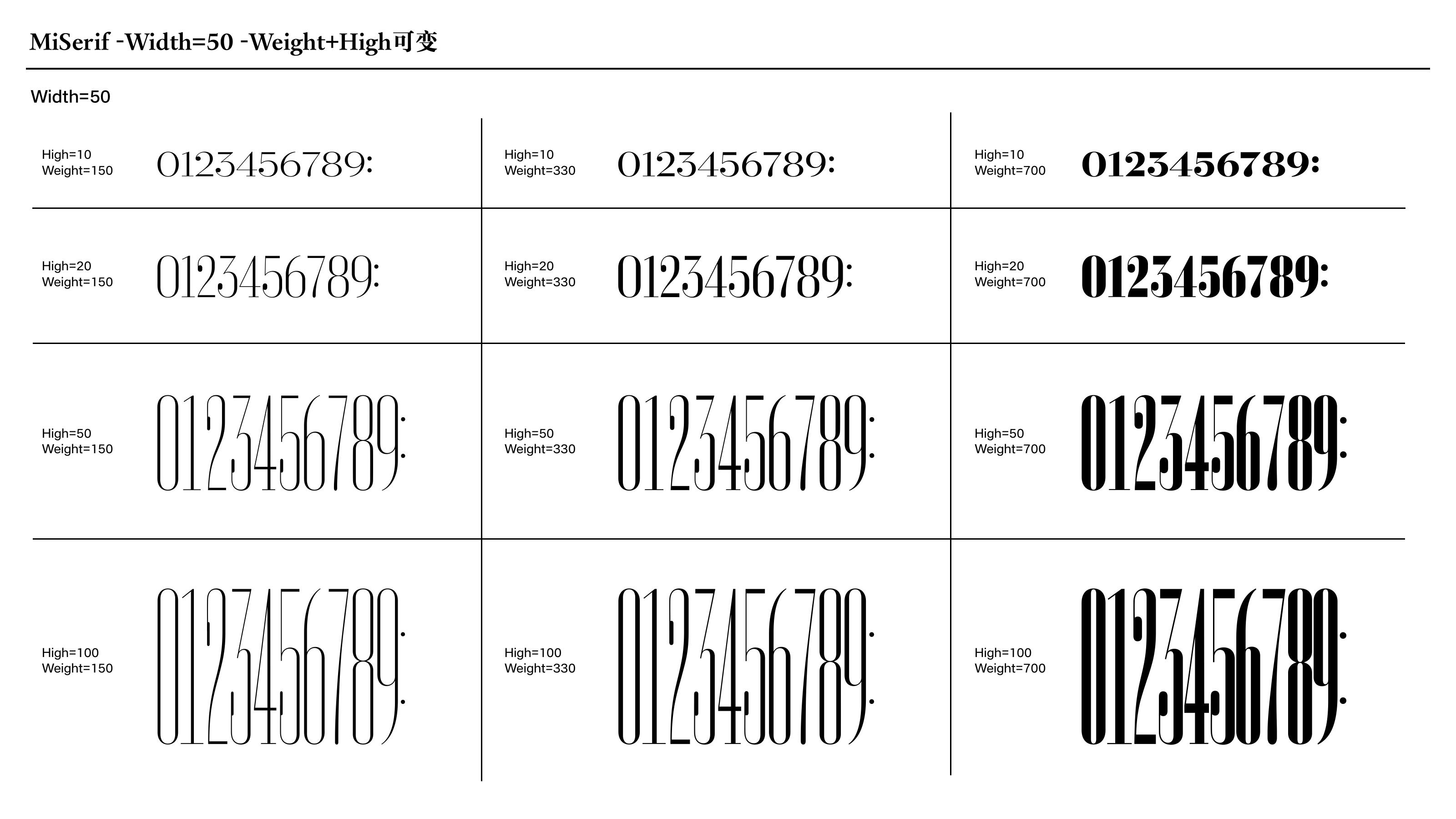
Lock-Screen Digit Customization
Numbers that move with the device experience.
Dynamic Font covers custom lock-screen numeral systems for device brands, from expressive clock styles to three-dimensional variable digits that expand weight, height, and width into a fluid visual system.
Overview
Hanyi has created dedicated lock-screen Latin letters and numerals for OPPO, Huawei, Honor, Xiaomi, and other device manufacturers, using digital type technology to reshape classic time displays.
Custom lock-screen systems can vary numeral height, weight, and width; place time displays inside activity cards, photo masks, and system widgets; and give each screen wake a distinct visual tone.
Multiscript numeral design supports brand internationalization, including coordinated digits across seven writing environments and OpenType behaviors for numeral replacement and centered colons.
Weight, height, and width become design axes for responsive time typography.
Digit forms can shift from compact to tall, light to bold, and narrow to wide while retaining a recognizable style.
Coordinate lock-screen digits across language environments, including alternate numeral forms and interface-specific OpenType behaviors.
Case Details
These modules show how lock-screen digits move from variation axes to phone scenarios: height, width, weight, style proposals, and foldable layouts.
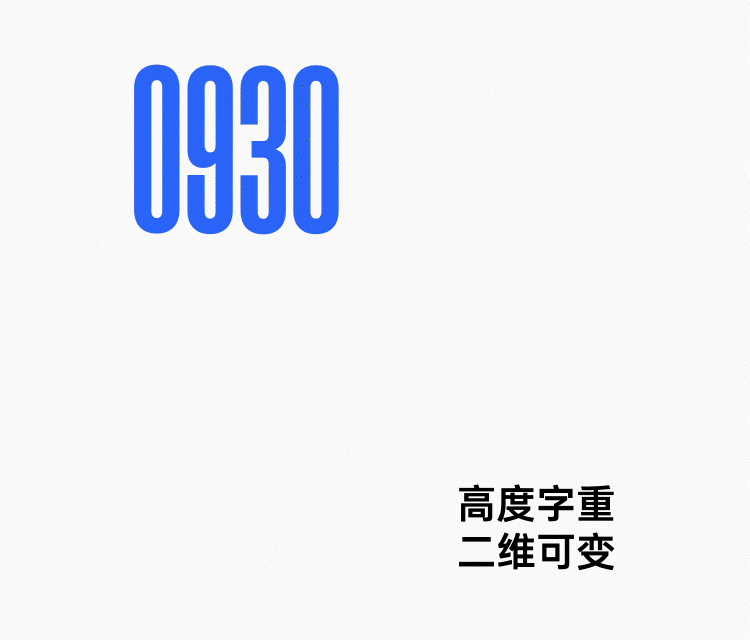
A clock face can grow taller and heavier without losing its construction, creating expressive lock-screen numbers for activity cards, wallpapers, and brand moments.
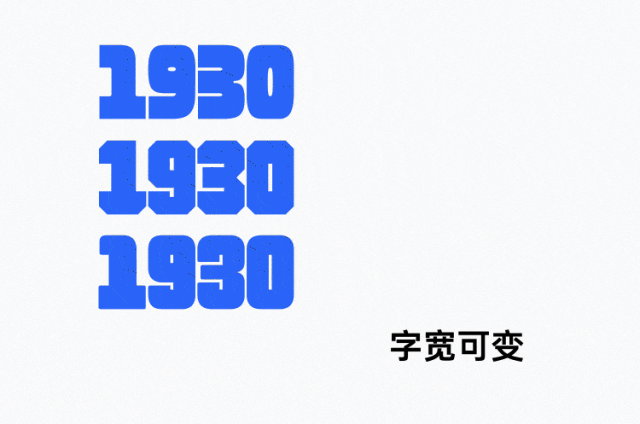
Width variation gives the same numeral style compact, balanced, and emphatic settings, letting the clock adapt to different screen proportions and compositions.
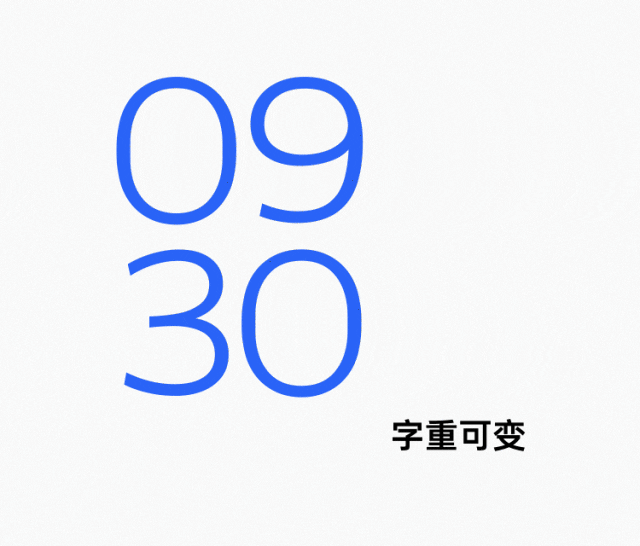
Smooth weight interpolation shifts the time display from light and elegant to bold and assertive while preserving recognition.
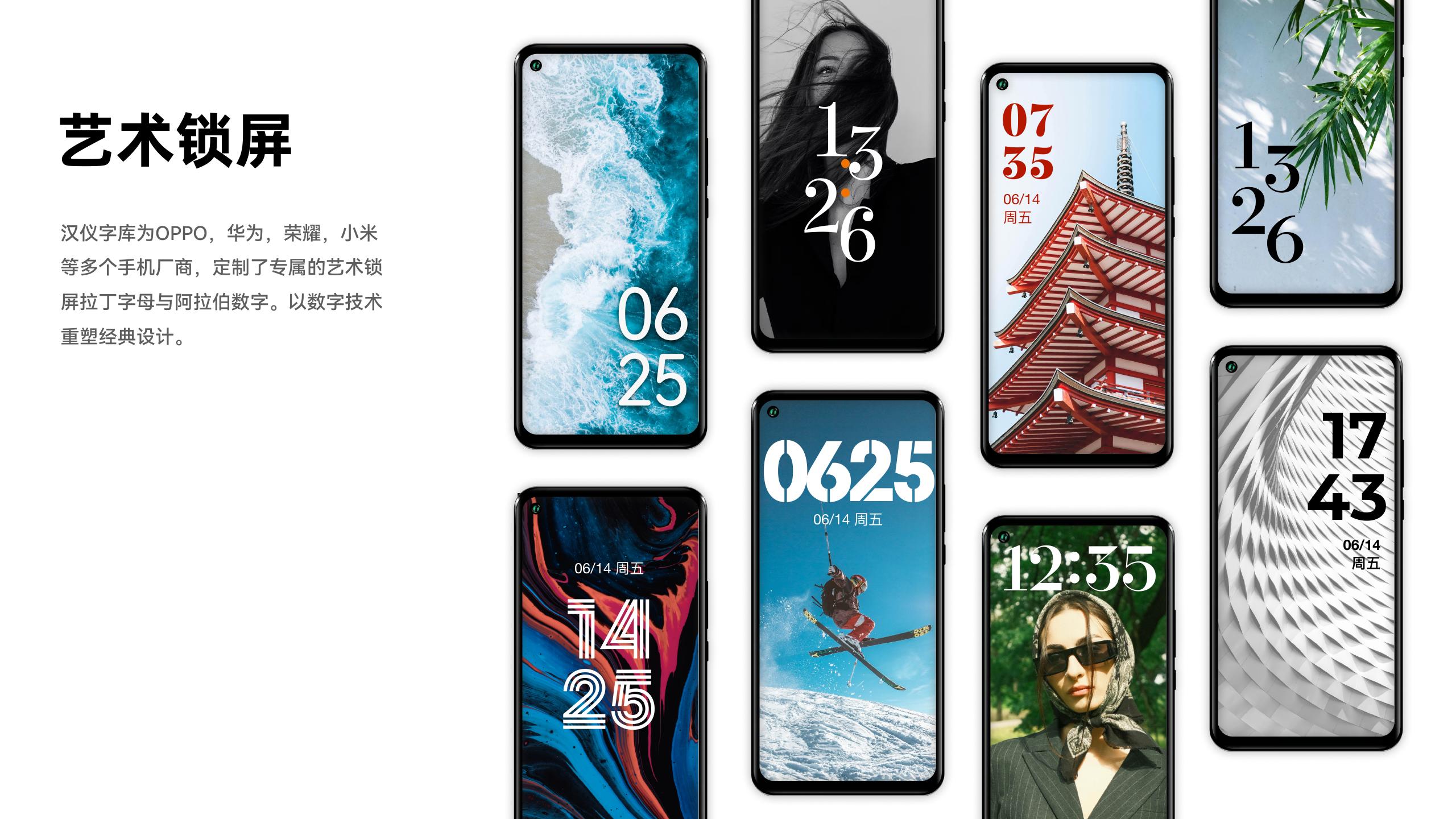
Hanyi develops custom Latin letters and numerals for OPPO, Huawei, Honor, Xiaomi, and other device brands, turning the lock-screen clock into a branded design asset.
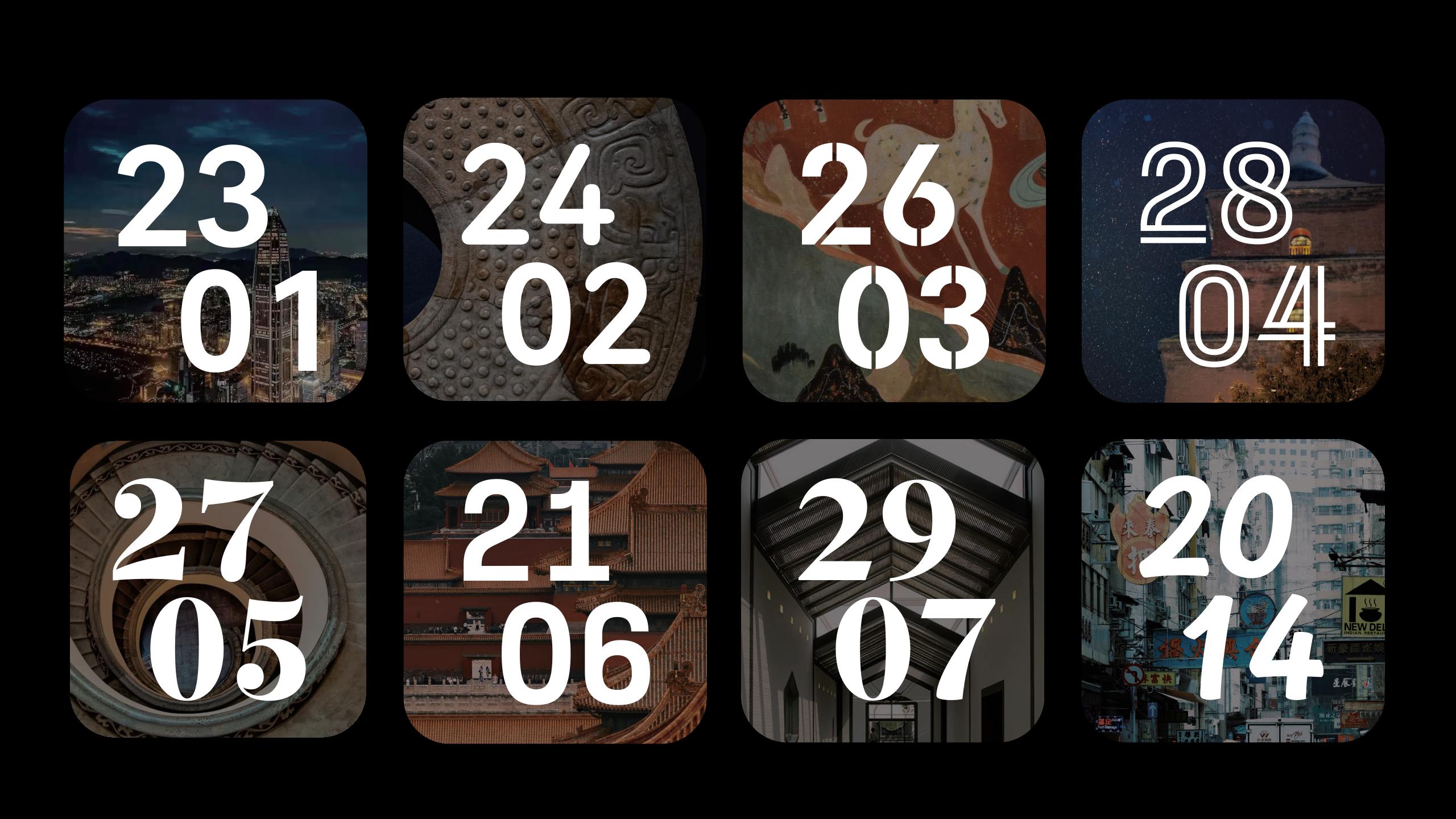
The proposal set tests different numeral voices across architecture, culture, city, and image-led themes, helping brands build a flexible style library before production.
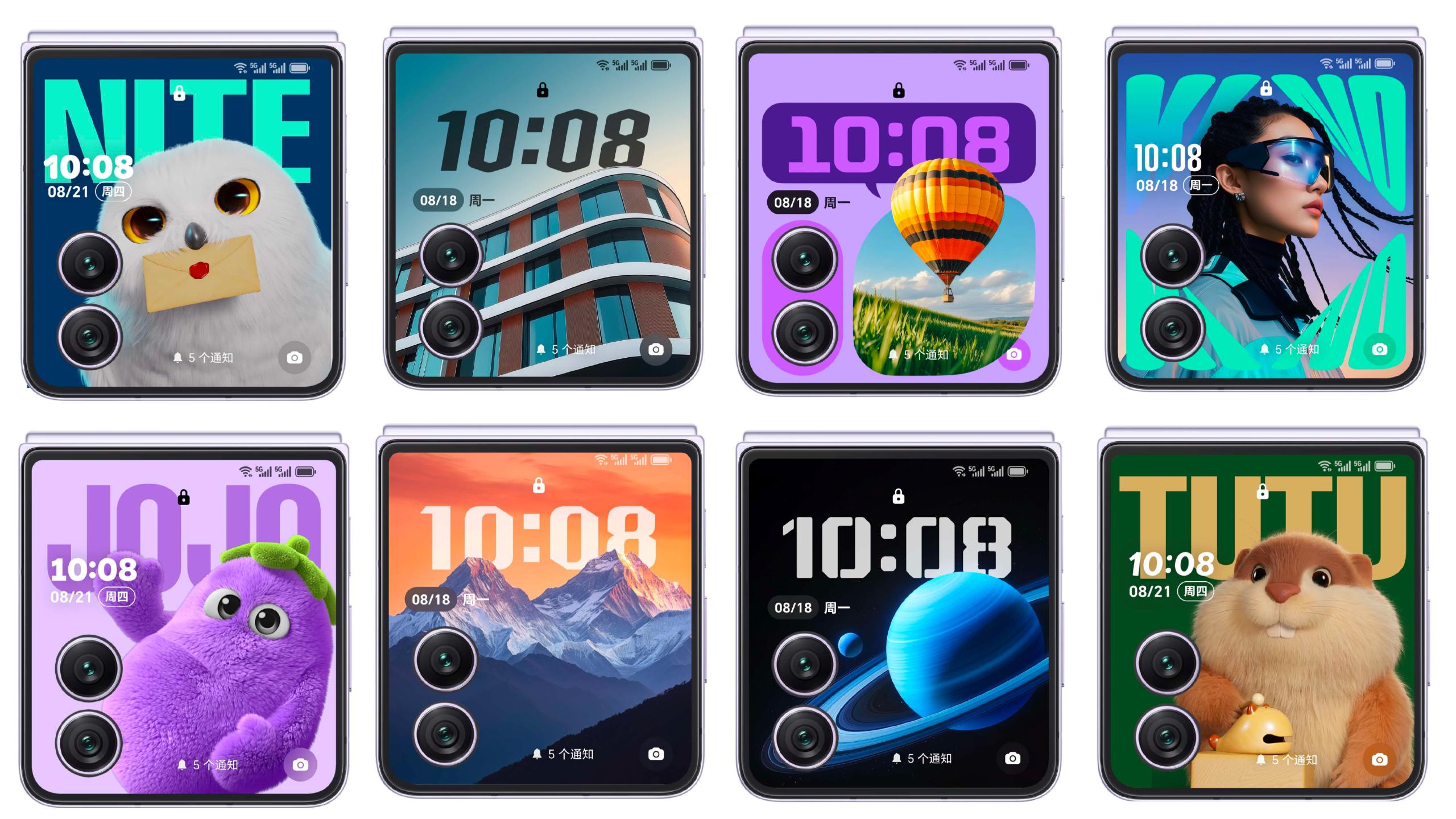
Large numerals, compact time stamps, and image-led layouts are adapted for foldable outer screens, where typography must share space with camera modules, widgets, and wallpapers.
Dynamic Font helps device brands, digital products, and expressive UI systems turn time displays into recognizable product moments.
Personalization
Lock-screen digits can respond to style choices while preserving spacing and legibility.
Technology
Multiple design masters are planned so transitions feel smooth instead of mechanically stretched.
Brand
The time display becomes a branded experience, not a generic numeric readout.